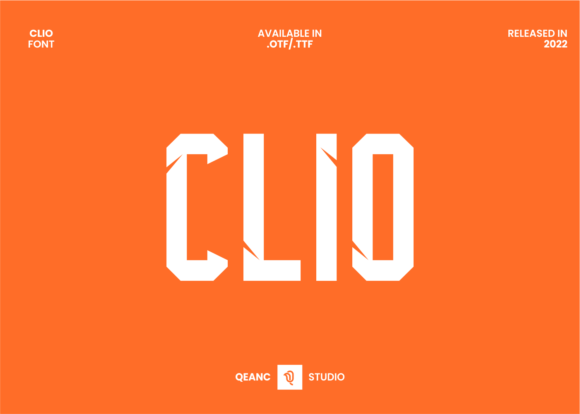
Clio Font
Clio is an awesome and cool display font inspired by football and sport. It is the perfect font for any sports or racing-themed projects, such as logos, posters, or t-shirts. Add this font to your creative ideas and notice how it will make them stand out!